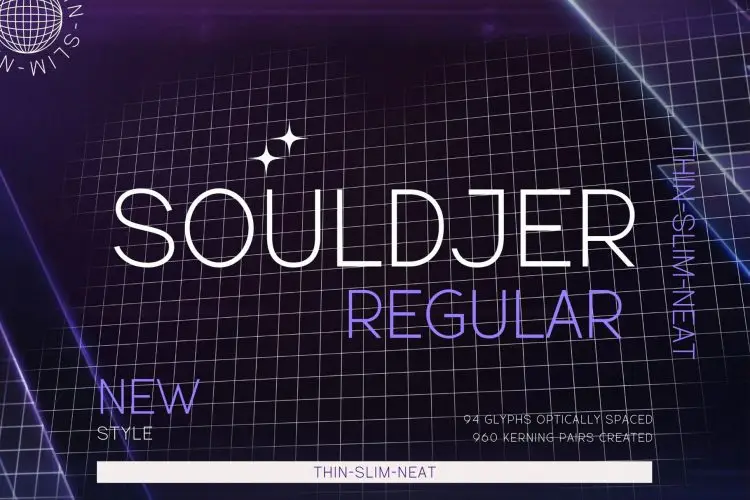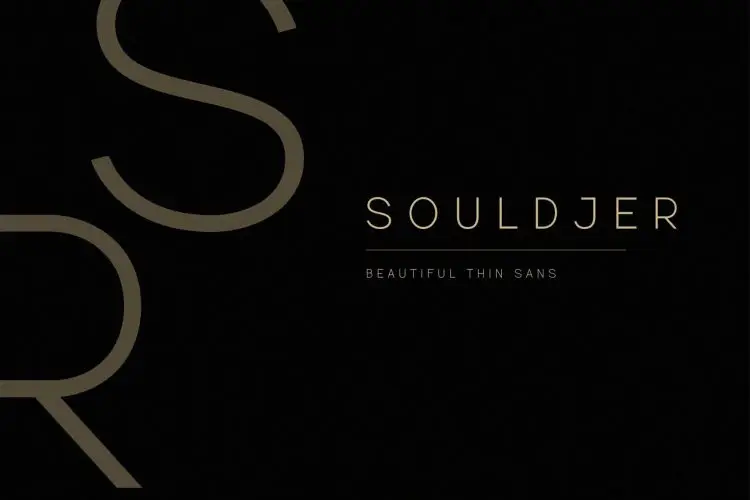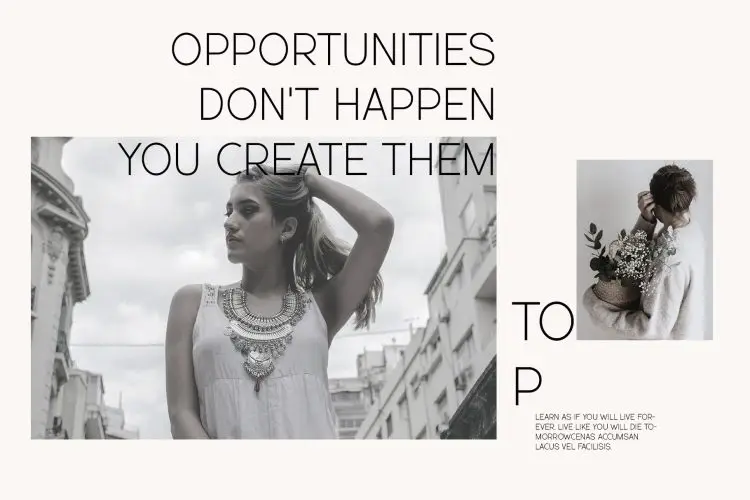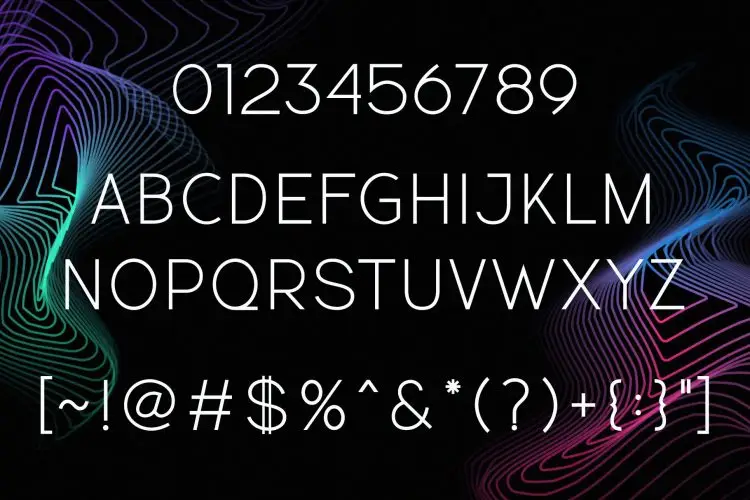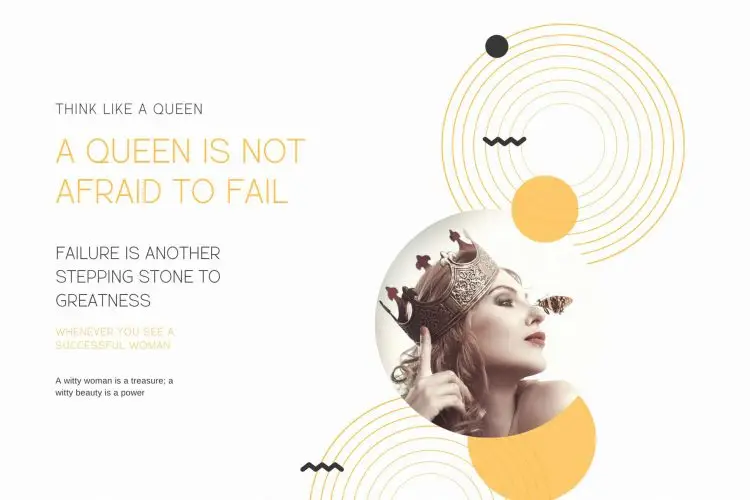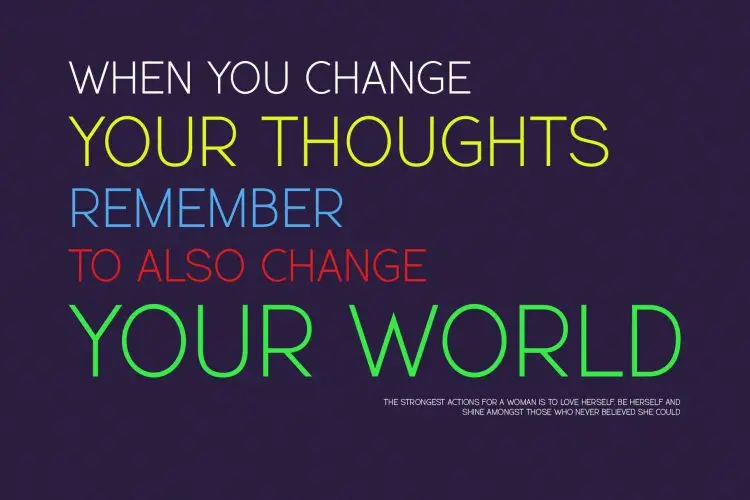
Souldjer Beautiful Thin Sans
Souldjer
Introducing Souldjer: A Beautiful Thin Sans Font
Discover Souldjer, a thin sans font meticulously crafted to bring elegance and modernity to your projects. Each letter is designed with precision, ensuring flawless typographic expression for a sleek and sophisticated look.
Ideal for:
• Modern Designs
• Beauty and Fashion
• Elegant Creations
• Technology
• Web Designs
Features:
• Ready for Creative Expression
• Immaculately Crafted Letters
Souldjer is a beautiful thin sans font blending modern elegance with clean, precise letterforms. Ideal for web, fashion, and creative designs.